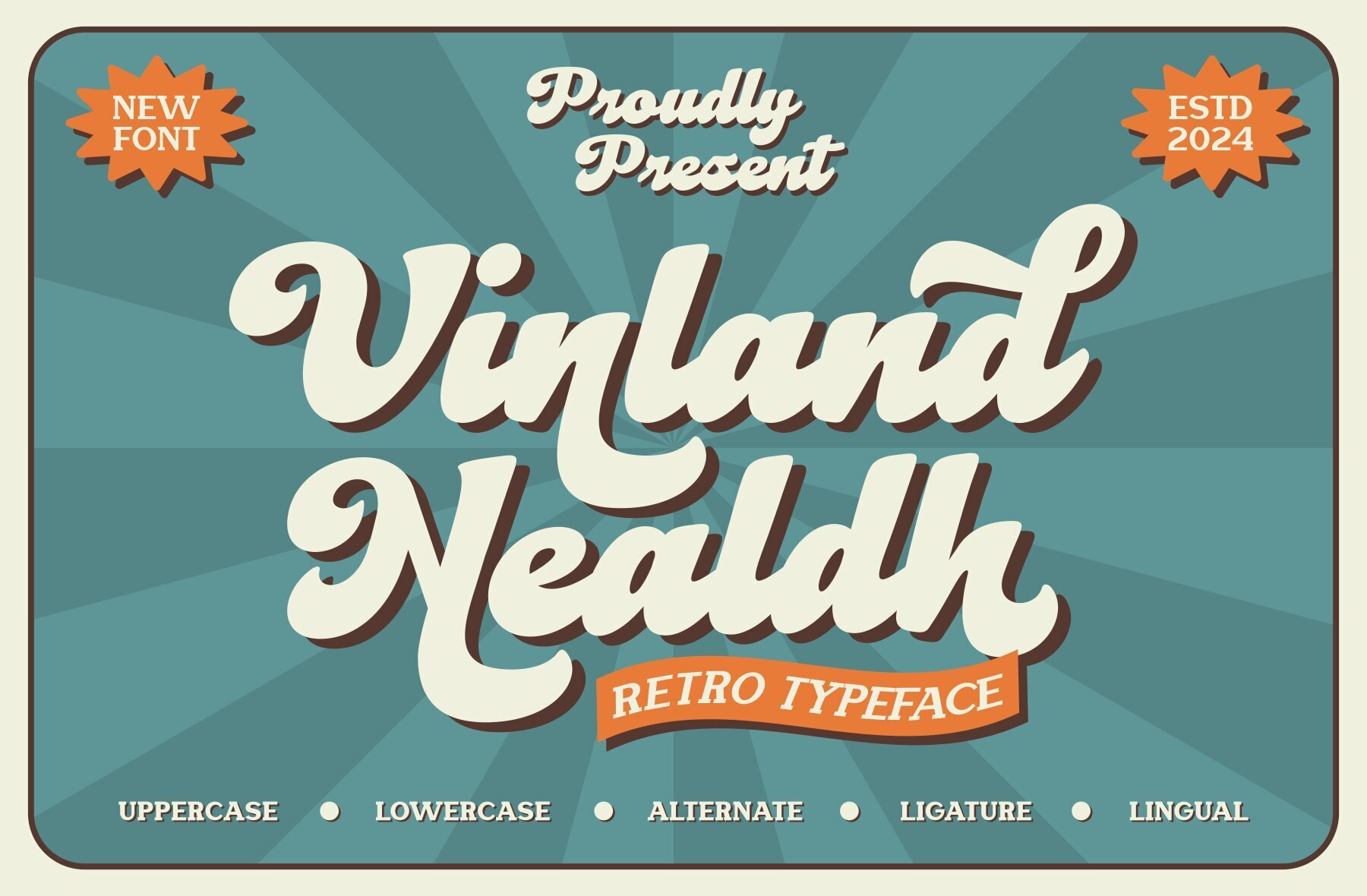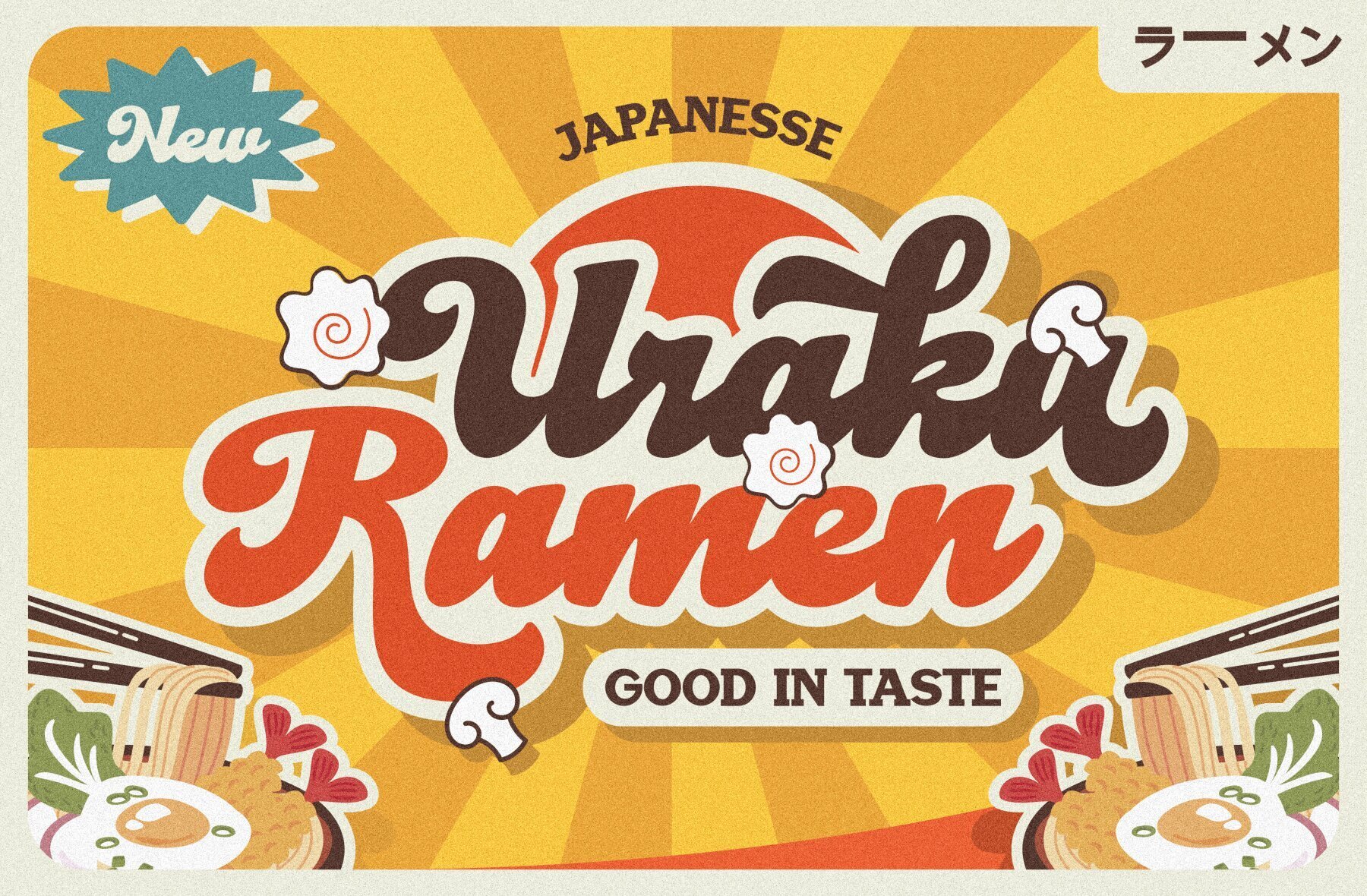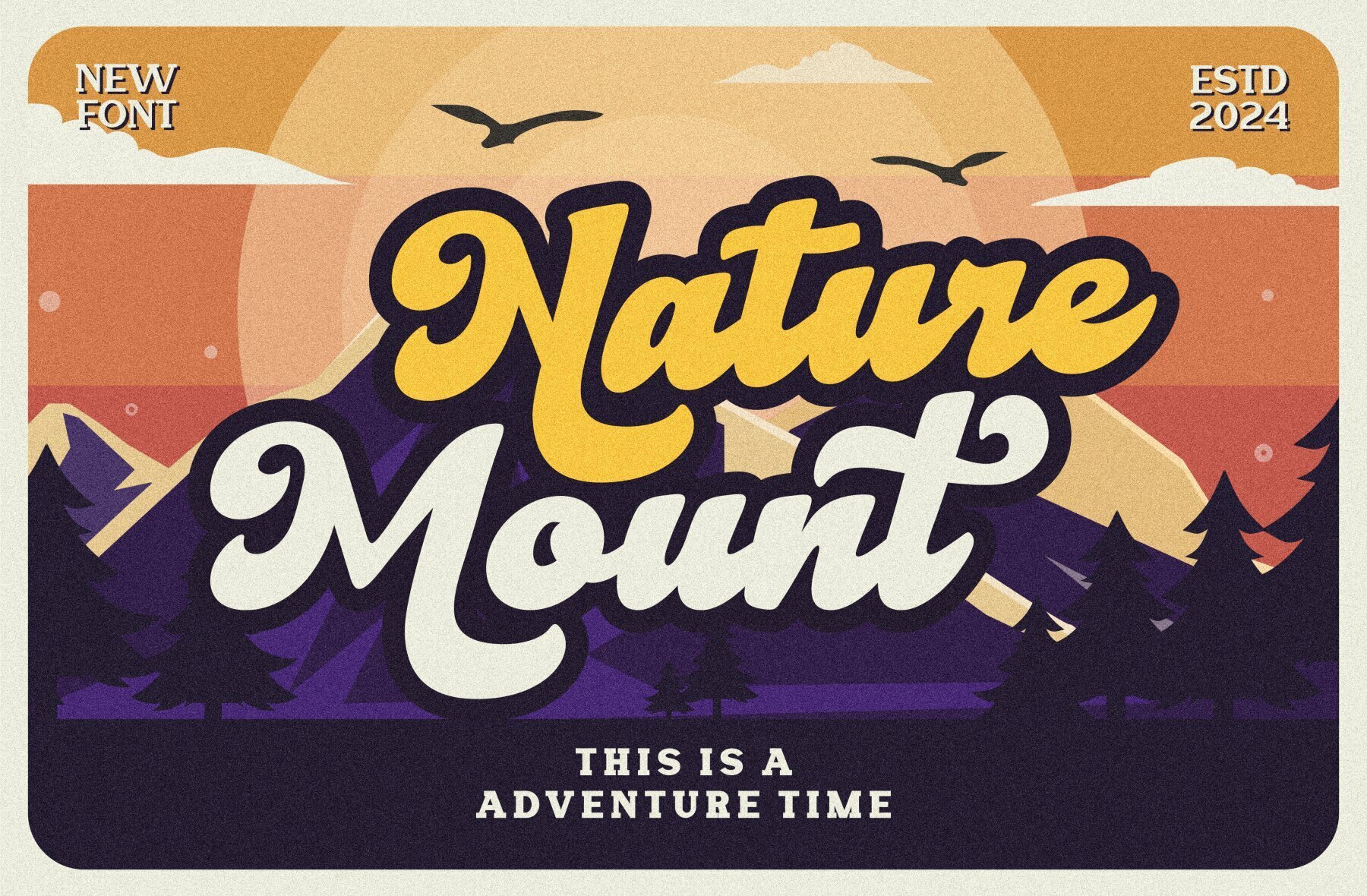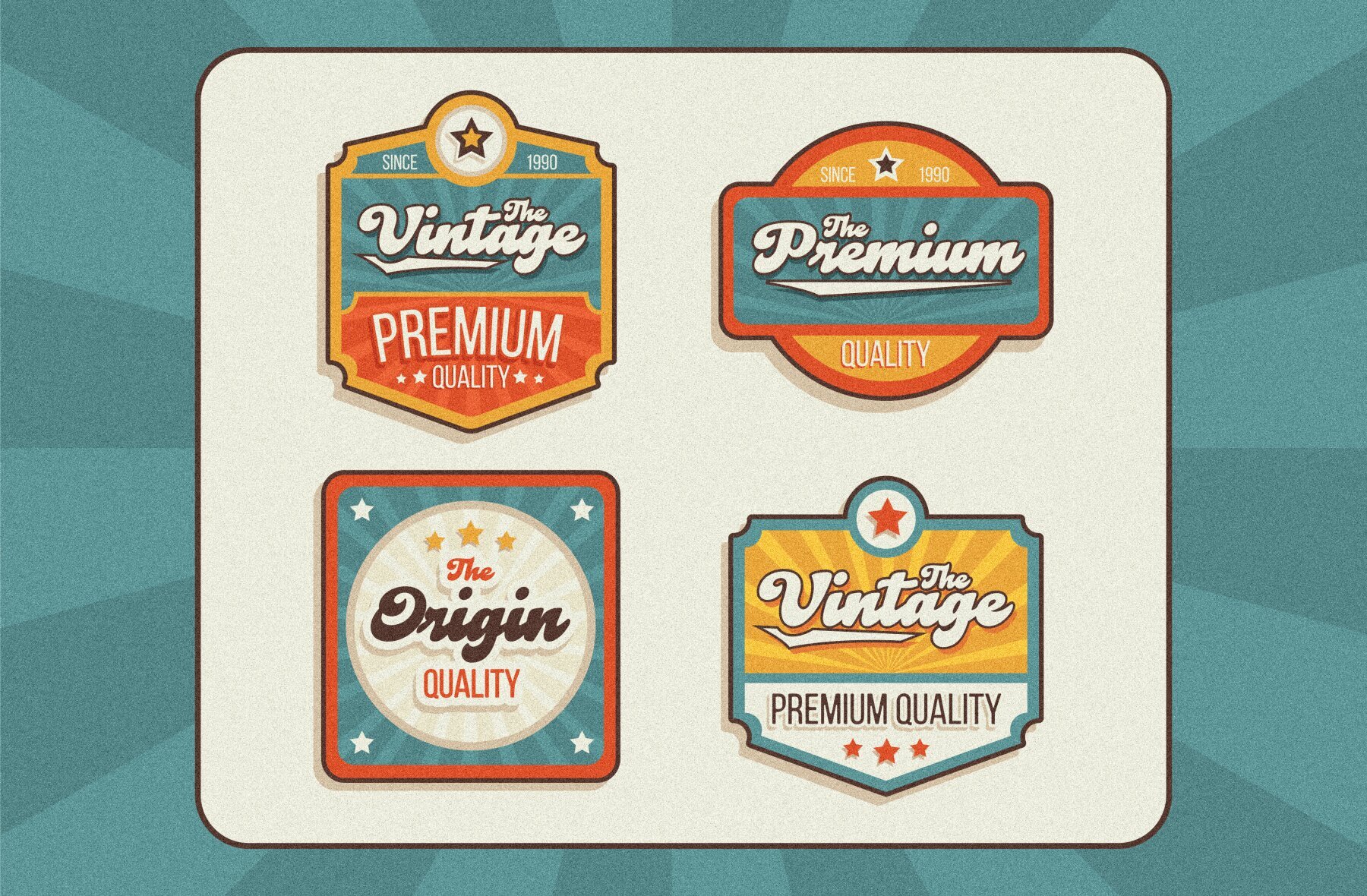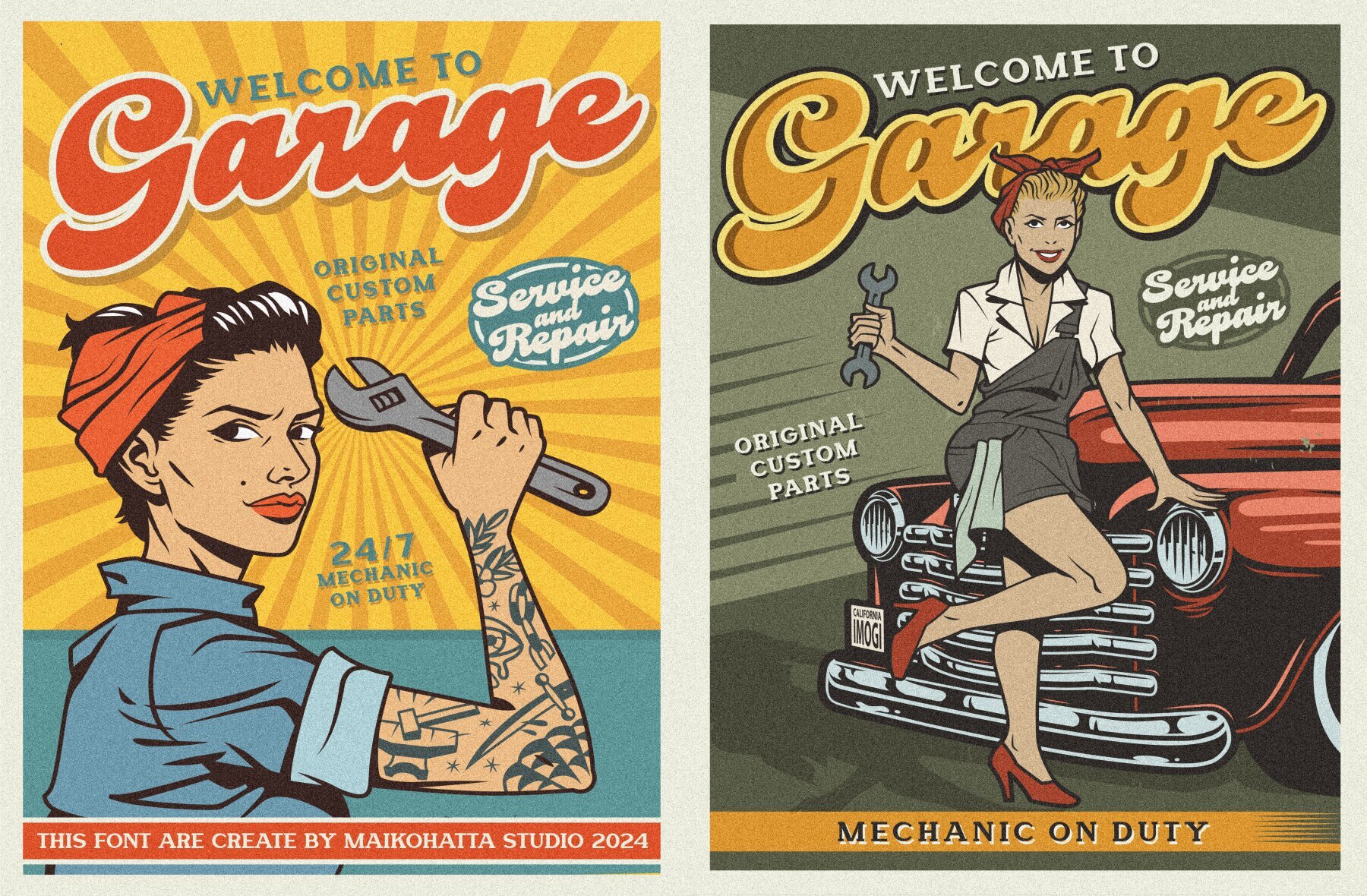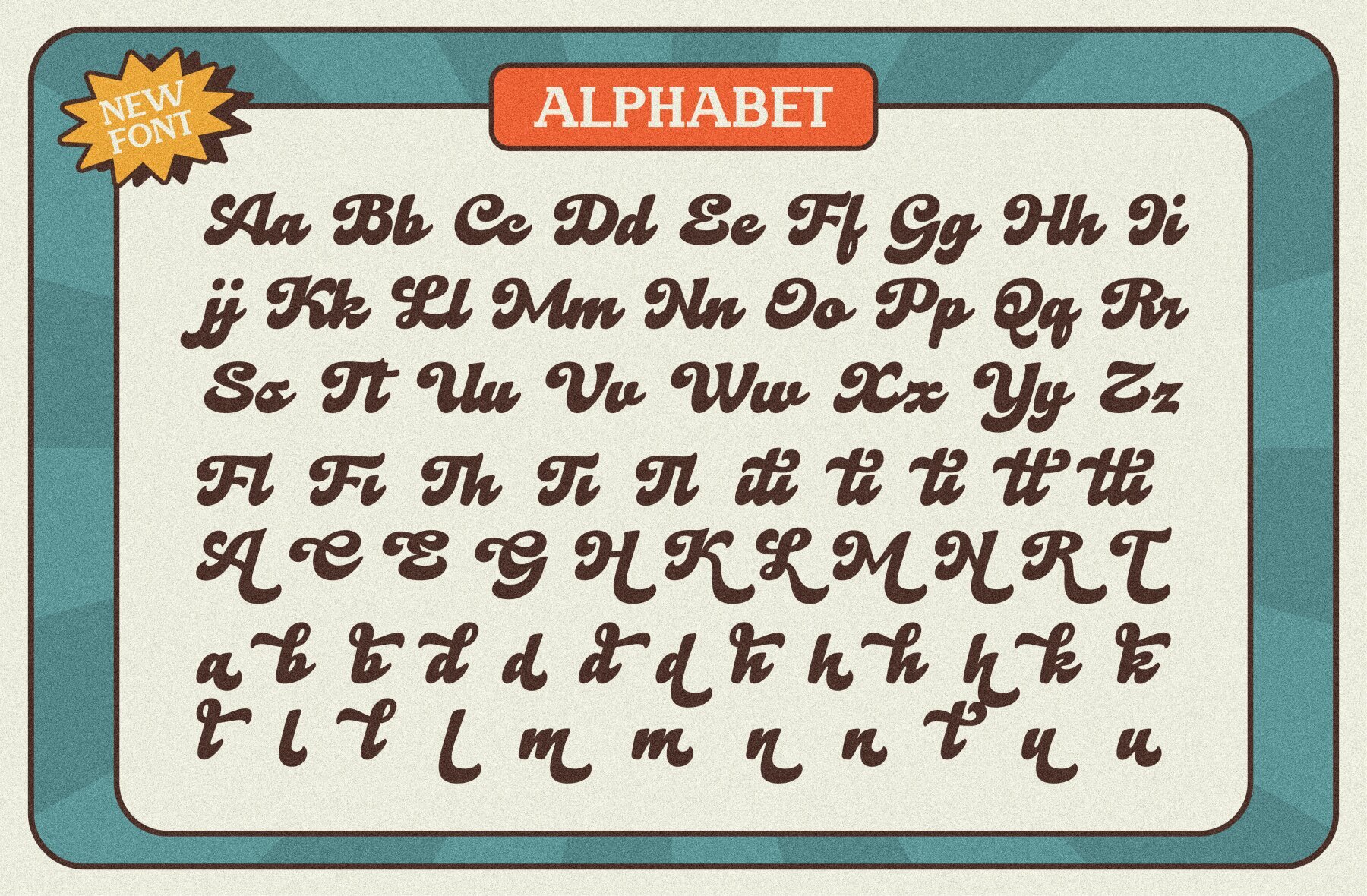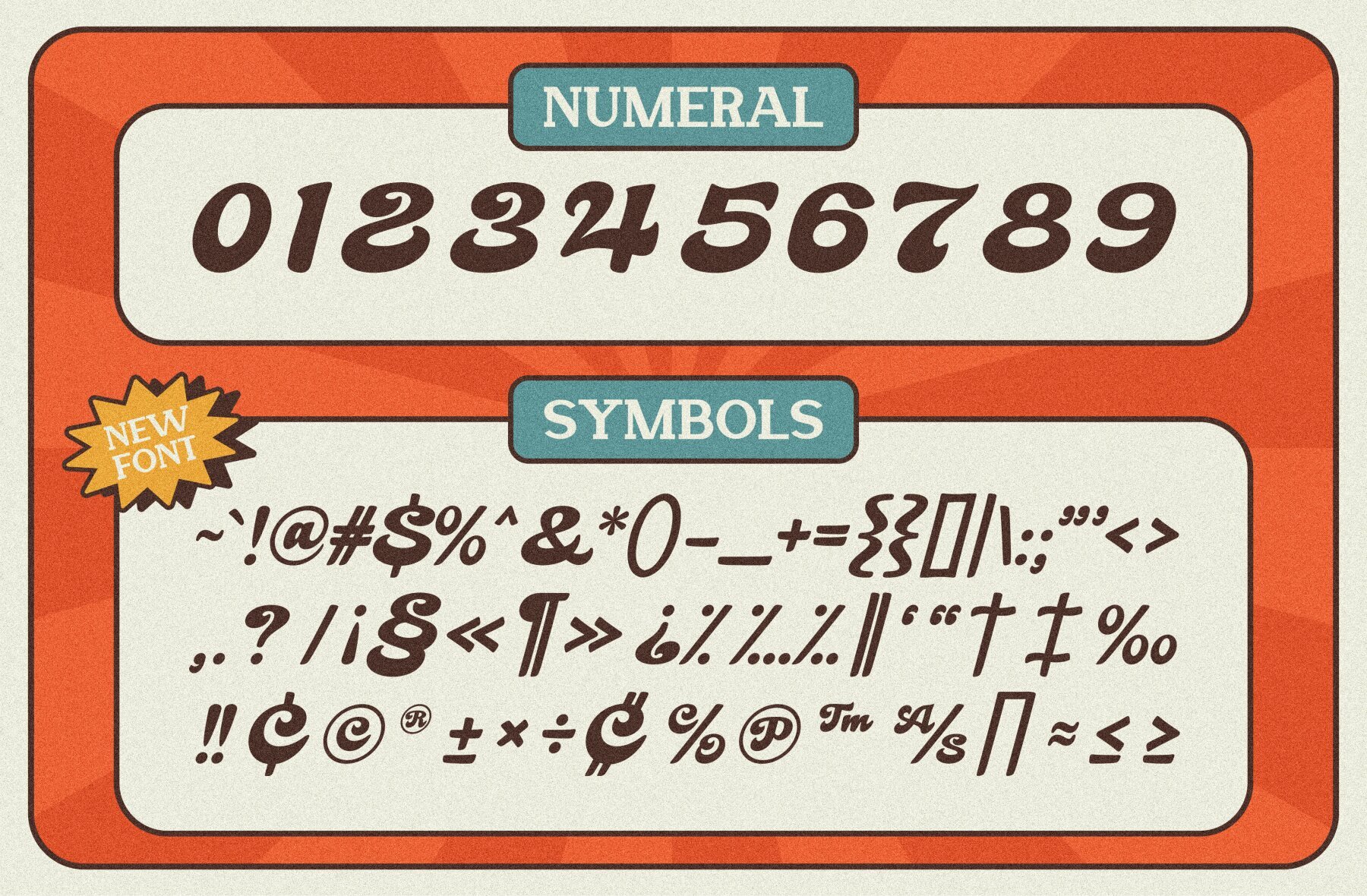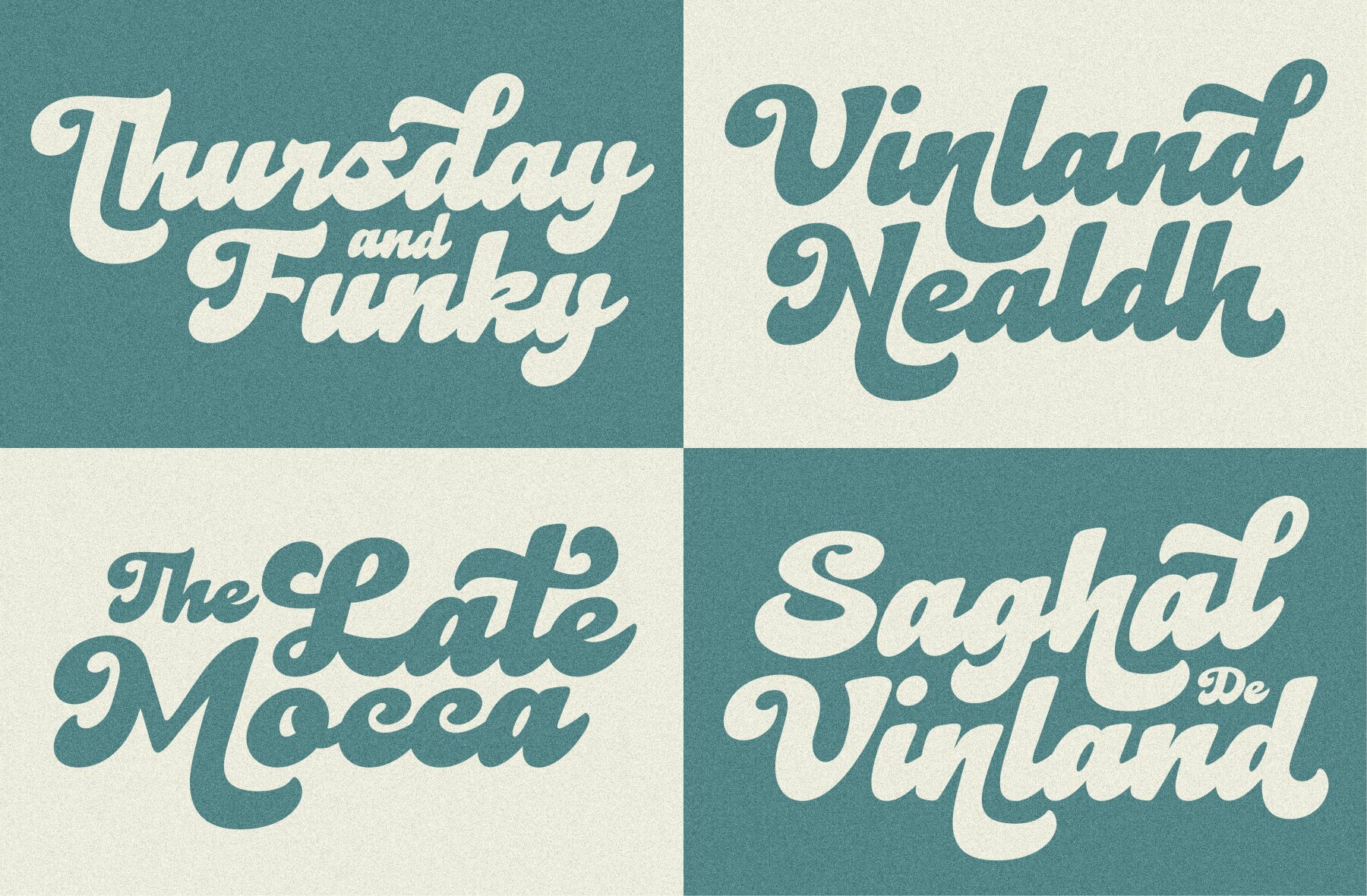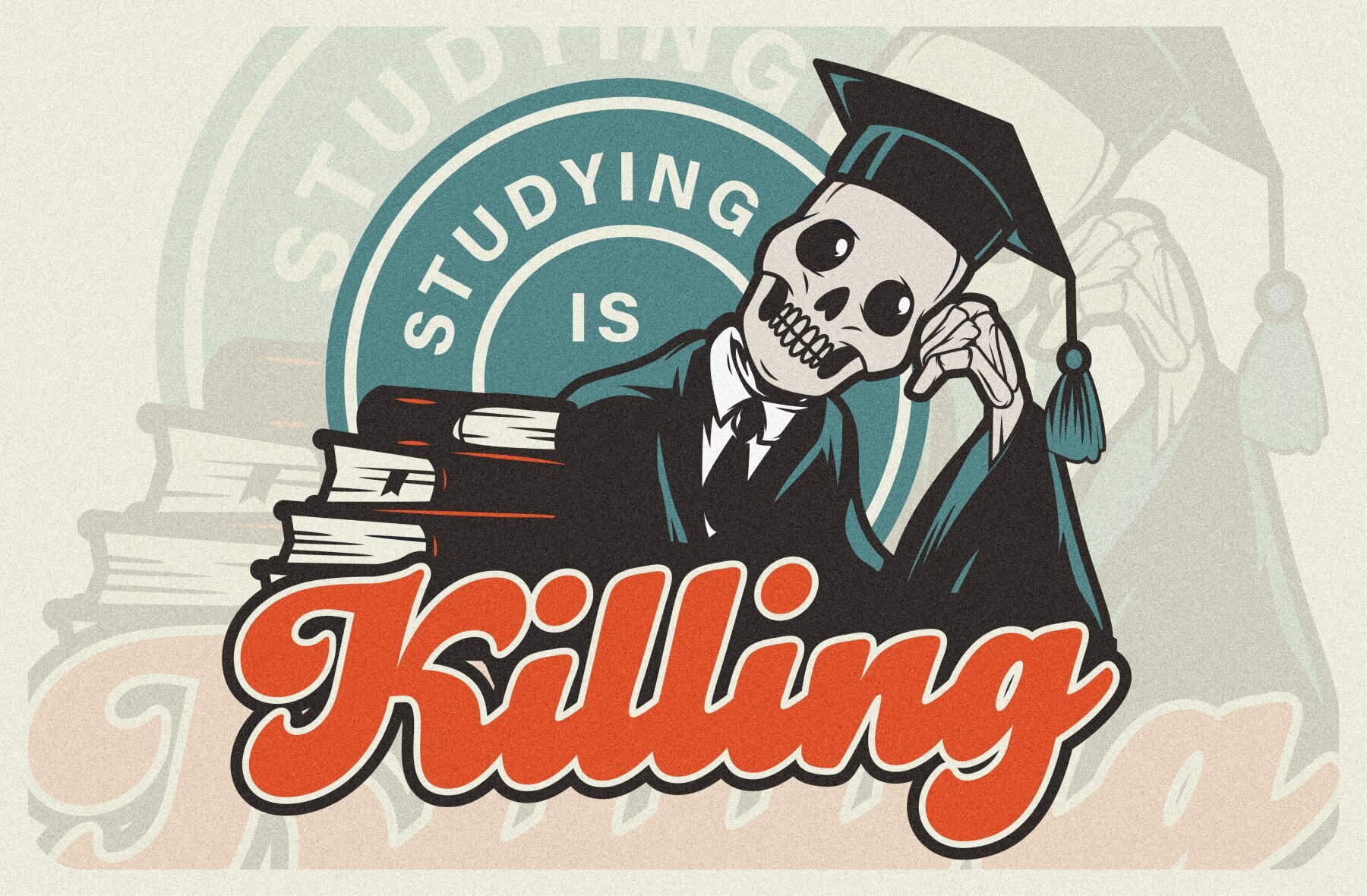
Vinland Nealdh Font
Vinland Nealdh
Vinland Nealdh is a dynamic script retro typeface that effortlessly combines versatility with visual appeal. Ideal for various design projects, it delivers a clean and contemporary aesthetic that’s perfect for graphic design and modern typography. Its straightforward style enhances readability while maintaining a professional look.
Key features of Vinland Nealdh include both uppercase and lowercase characters, enhancing design flexibility. The typeface is multilingual, accommodating diverse linguistic needs. Additionally, it offers ligatures and alternates, providing designers with creative options for customizing their work. Whether you're working on branding, print, or digital projects, Vinland Nealdh serves as a compelling choice for enhancing your design repertoire.